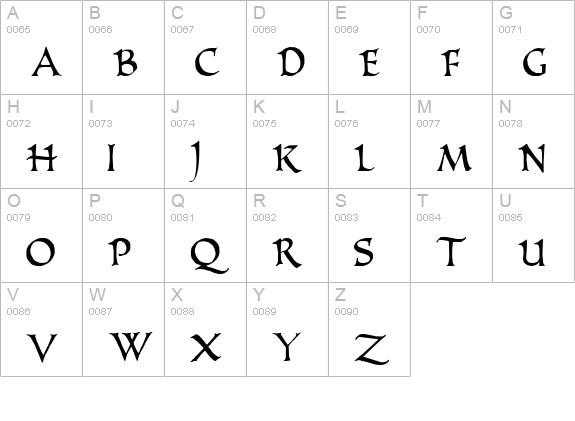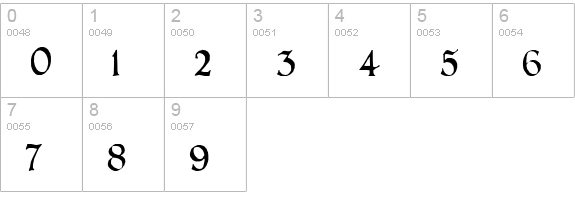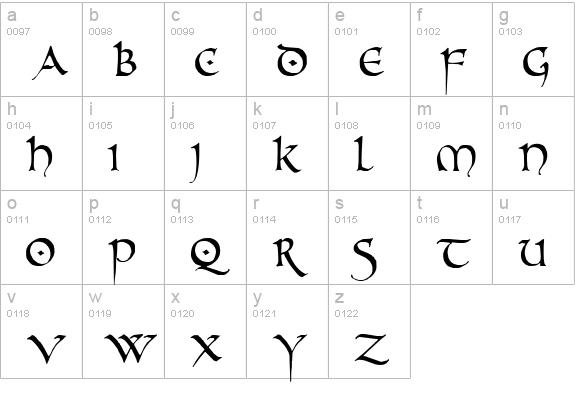
PR Uncial Alt Caps Font Details
PR Uncial Alt Caps is a stunning and unique font that exudes a sense of elegance and sophistication. With its ancient and timeless appeal, this font is perfect for adding a touch of class to your design projects. The striking uppercase letters are beautifully crafted with intricate details that make them stand out on any material. What makes PR Uncial Alt Caps even more appealing is that it is completely free to download at FontsMarket.com. This means that you can easily access this exquisite font and use it in your personal or commercial projects without any cost. Whether you're designing invitations, posters, logos, or any other creative work, PR Uncial Alt Caps will bring a touch of refinement and style to your designs. Download this font today and elevate your projects with its captivating charm.